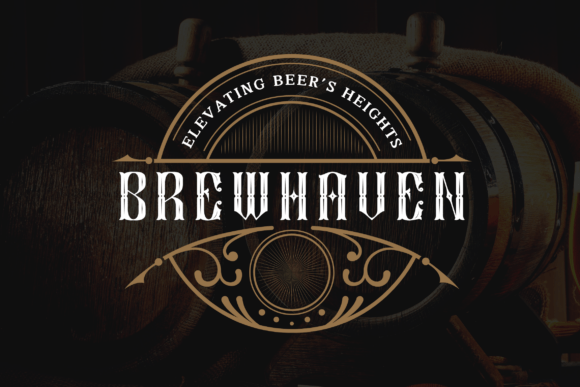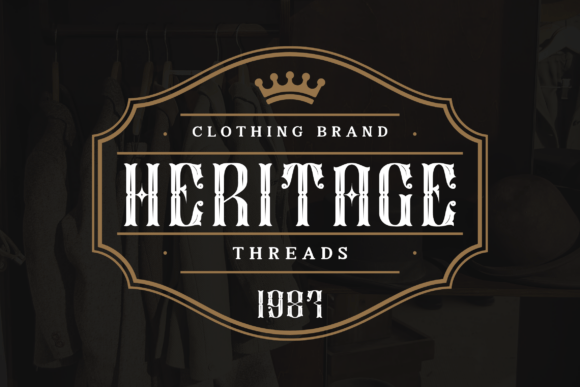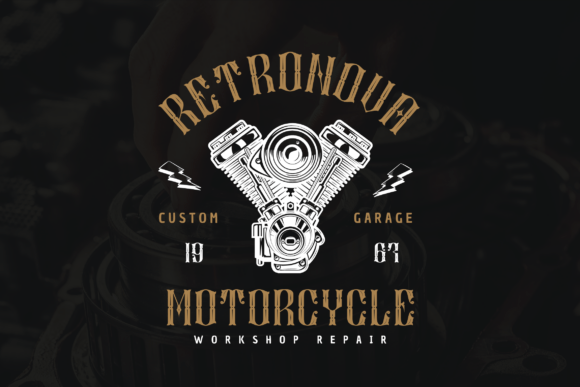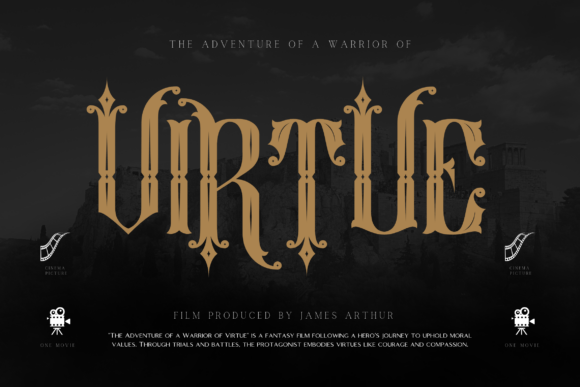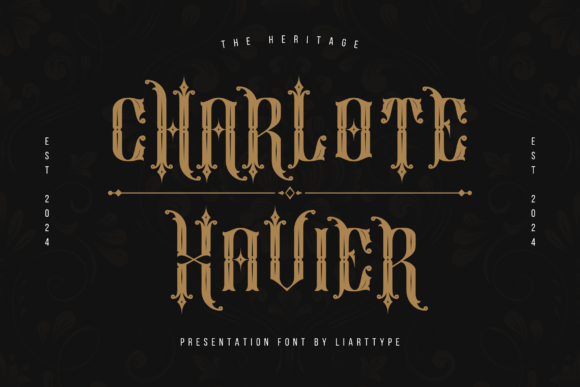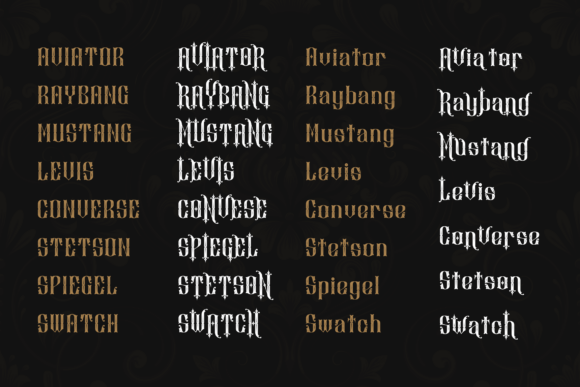
Introduction to Konsa Font Font
Fonts play a crucial role in design, and the Konsa Font font is a typeface that brings both character and versatility to any project. Whether you’re working on a branding project, a website, or a print design, the Konsa Font font offers a unique style that can elevate your work.
Konsa is a luxury vintage blackletter font that exudes timeless elegance while maintaining a sharp and unique character.
Its design strikes the perfect balance between sophistication and boldness, making it ideal for various creative needs such as branding, posters, logos, packaging, and editorial designs Equipped with alternates, ligatures, and multilingual support, Konsa offers versatility and beauty to elevate any design project.
Key Features of Konsa Font Font
Why Choose Konsa Font Font?
The Konsa Font font is more than just a typeface – it’s a design tool that helps you communicate your message with style and clarity. Its unique character set and versatile design make it suitable for a wide range of applications, from elegant invitations to bold headlines.
With its carefully crafted letterforms and balanced proportions, the Konsa Font font ensures readability and visual appeal across all mediums.
What makes Konsa Font font special?
The Konsa Font font stands out with its unique design, exceptional readability, and versatility across various design applications.